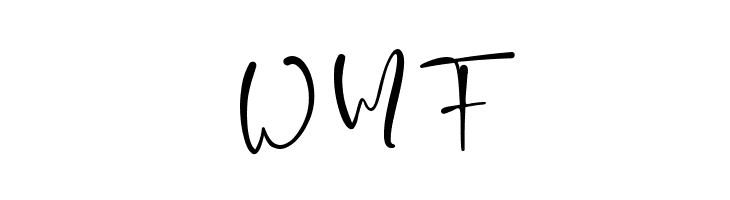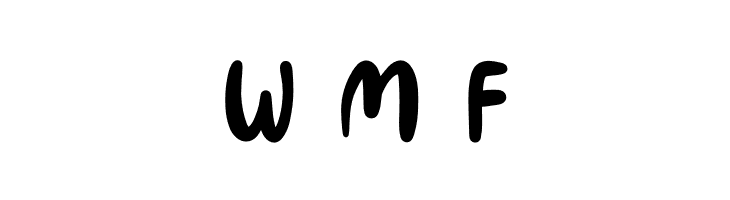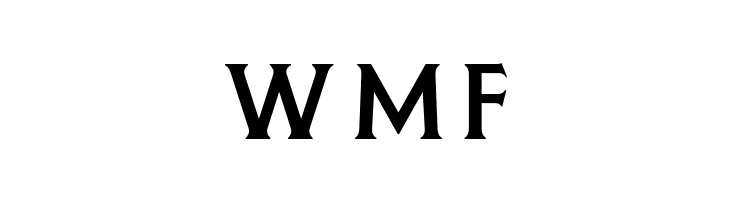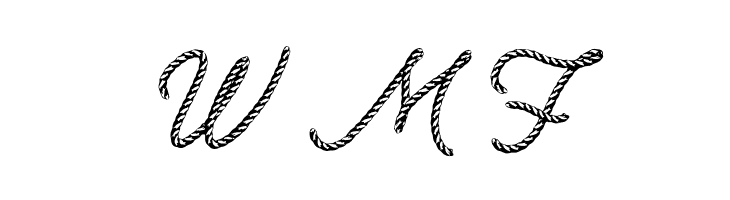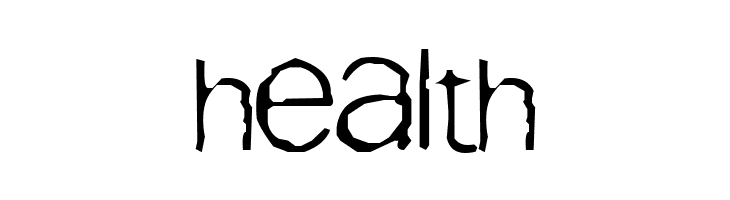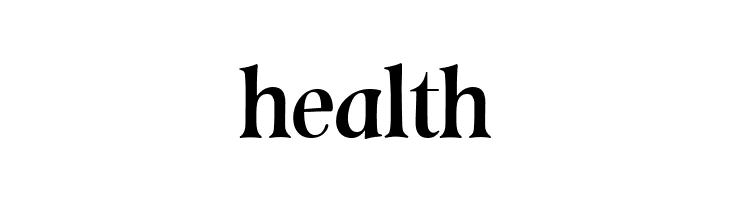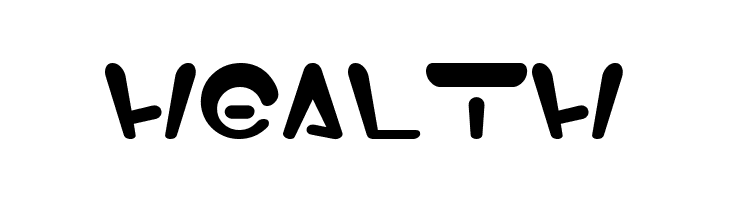
A bold, high-contrast serif font with sharp serifs and a modern twist.
A bold, artistic font with circular and looping strokes, offering a modern twist.
A decorative hollow font with intricate detailing and a modern twist on traditional serif styles.
A playful, hand-drawn font with festive elements and a modern twist.
A bold, gothic-inspired font with sharp, angular edges and a modern twist.
A bold, angular font with a modern twist on traditional blackletter styles.
A bold, outlined collegiate-style font with a modern, decorative twist.
A bold, shadowed serif font with a modern twist.
A bold, angular serif font with a modern twist.
A fluid and elegant script font with a modern twist, perfect for a handwritten aesthetic.
A playful, bold handwritten font with a modern twist.
A bold, gothic-inspired font with sharp, angular lines and a modern twist.
A bold, vintage-inspired font with a modern twist, perfect for impactful designs.
A decorative font with gothic and organic influences, featuring intricate, twisted designs.
A playful, bold handwritten font with a modern twist.
A bold, vintage-inspired font with a modern twist, perfect for impactful designs.
A handcrafted, artistic font with a vintage flair and modern twist.
A flowing, elegant script font with a modern twist, perfect for personal and professional projects.
A playful and elegant handwritten font with a modern twist.
A playful, bold, and hand-drawn font with a retro-modern twist.
A playful and artistic script font with a modern twist, featuring smooth, flowing strokes.
A dynamic and fluid script font with a modern twist, perfect for stylish projects.
A playful and elegant script font with a modern twist.
A bold, narrow serif font with a modern twist and strong vertical emphasis.
A flowing, elegant script font with interconnected characters and a modern twist.
A classic serif font with a modern twist, featuring elegant and elongated letterforms.
A classic serif font with a modern twist, featuring elegant curves and sharp serifs.
A bold serif font with strong, angular serifs and a modern twist.
A bold, decorative font with a twisted, organic design and spine-like details.
A decorative font styled to resemble twisted rope, offering a unique and textured appearance.
A bold, playful font with a retro-modern twist and rounded, irregular characters.
A playful, fluid, and bold decorative font with a modern twist.
A classic serif font with a modern twist, offering elegance and versatility.
An elegant serif font with high contrast and a modern twist.
A bold, dynamic serif font with a modern twist and high contrast.